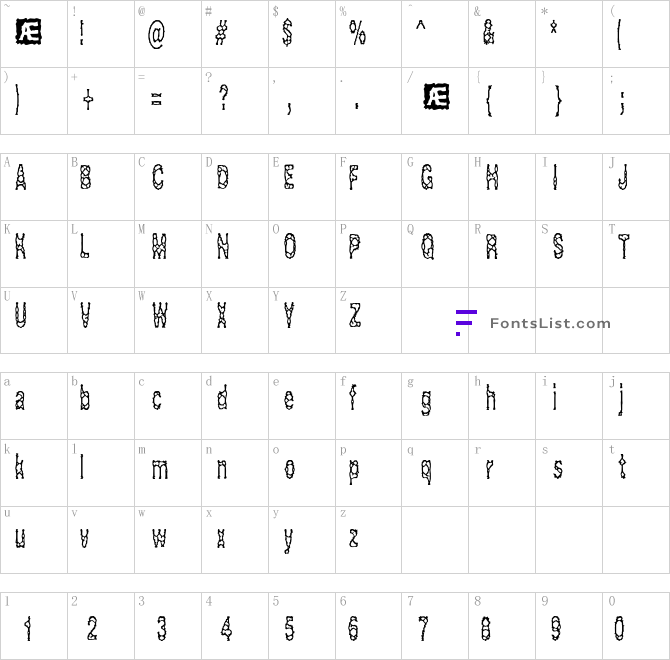
- Font Name:Acid Reflux (BRK)
Acid-Reflux-BRK-.ttf is a very beautiful artistic font, Acid-Reflux-BRK-.ttf is widely used in the design and printing of various books and pictures,Acid-Reflux-BRK-.ttf has a strong visual impact,Acid-Reflux-BRK-.ttf is a commonly used font in newspapers, magazines and books, and is used in posters, e-commerce Poster design, store design, logo design, font design and other fields.Acid-Reflux-BRK-.